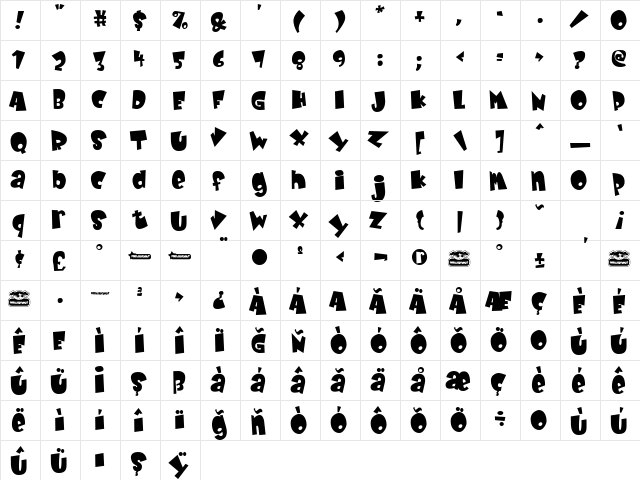
TR Baby Kruffy Regular
Design Context for TR Baby Kruffy Typeface
TR Baby Kruffy is a composed and adaptable typeface that performs quietly and consistently across a wide range of design contexts.